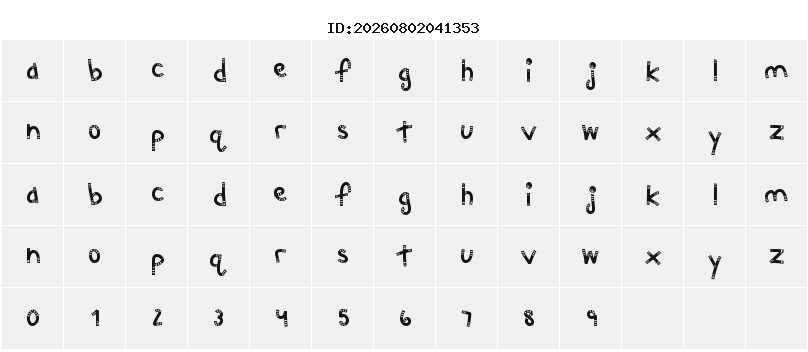
MTF Chunkie Preview
• Font Name: MTF Chunkie
• Designer: Tiina Raparanta
About MTF Chunkie.ttf
MTF Chunkie.ttf is a modern, elegant sans-serif font designed for ultimate readability and visual harmony. Perfect for branding, headlines, web design, and print materials.